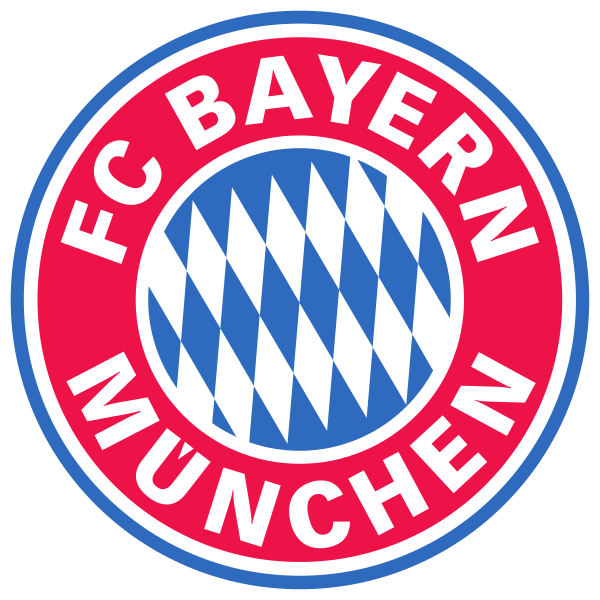
FC Bayern Munich Font
Fonts in UseFC Bayern Munich is a highly successful German football club known for its rich history, winning numerous domestic and international titles, including multiple UEFA Champions League titles.
The logo of FC Bayern Munich draws inspiration from the checkered flag of Bavaria, featuring a circular design. The text in the logo is most likely written in Vectora Black, a contemporary sans serif typeface designed by Adrian Frutiger in 1990. More details about Vectora can be found here.